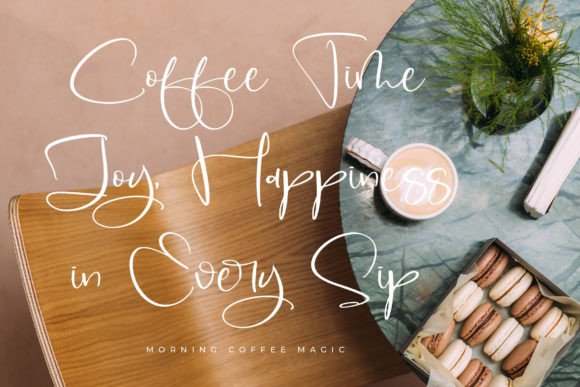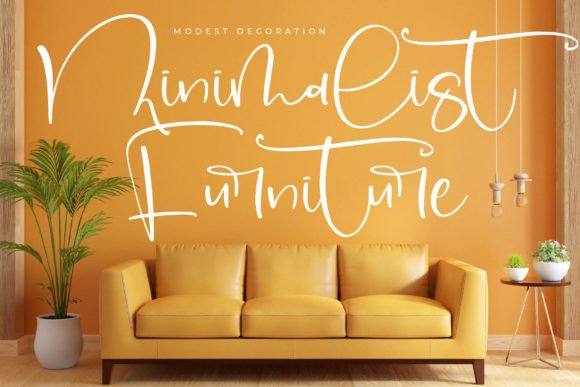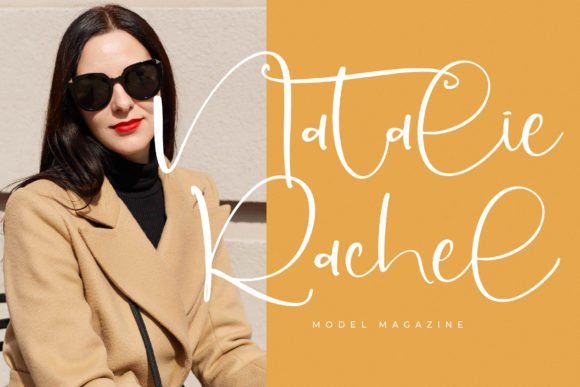
Introduction to Mustard Simple Font
Have you ever stared at a blank canvas, trying to find the perfect font to bring your creative project to life? For many designers, this is a familiar struggle. But what if you could find a font that effortlessly combines the charm of handwritten style with the sophistication of modern design?
Enter the Mustard Simple Font, a game-changing typeface that’s perfect for a wide range of applications, from apparel and home decor to digital content and branding. With its unique blend of handwritten and modern elements, this font is a valuable resource for designers looking to add a touch of personality to their work.
Whether you’re working on a high-quality design project or simply need a reliable font for a craft project, the Mustard Simple Font is a must-have in your design arsenal. And the best part? It’s available for free download, making it an accessible and affordable resource for designers of all levels.
Key Features of Mustard Simple Font
- High-quality design resource suitable for various creative projects.
- Comes with a transparent background, allowing for seamless integration with other design elements.
- Single-layer design with a resolution of 300 DPI, ensuring crisp and clear typography.
- Designed to be highly legible and versatile, suitable for a wide range of applications.
Honest Review: Mustard Simple Font
I recently had the opportunity to work with the Mustard Simple Font, and I must say it’s a great addition to any design project. The font’s simple yet elegant design makes it perfect for a wide range of creative projects, from logos to typography-heavy designs.
One of the things that stood out to me about this font is its high quality. The lines are crisp, the curves are smooth, and the overall feel is professional. The font also includes a transparent background, making it easy to work with and customize.
Here are some of the things that I liked about the Mustard Simple Font:
- ✨ Simple yet elegant design that works well in a variety of contexts
- ✨ High quality lines and curves that give it a professional feel
- ✨ Transparent background for easy customization
- ⚠️ Limited character set, which may not be ideal for longer blocks of text
- ⚠️ May not be as effective for more complex designs or creative projects that require a lot of customization
Overall, I’m impressed with the Mustard Simple Font. It’s a great design resource that’s perfect for simple, high-quality designs. And the best part? It’s free to download, making it a great addition to any designer’s toolkit.
Introduction to Mustard Simple Font
The Mustard Simple Font is a free design resource ideal for creative projects that require a high-quality, elegant font. This font features a transparent background, making it easy to overlay on various backgrounds.
Tips for Getting the Most Out of Mustard Simple Font
To maximize the potential of the Mustard Simple Font, experiment with different font sizes, colors, and combinations. This will help you create visually appealing designs that effectively communicate your message.
Common Use Cases for Mustard Simple Font
The Mustard Simple Font is suitable for a variety of applications, including business cards, brochures, posters, and social media graphics. Its elegant design makes it an excellent choice for creative projects that require a touch of sophistication.